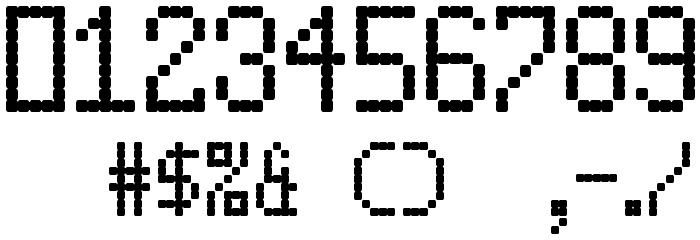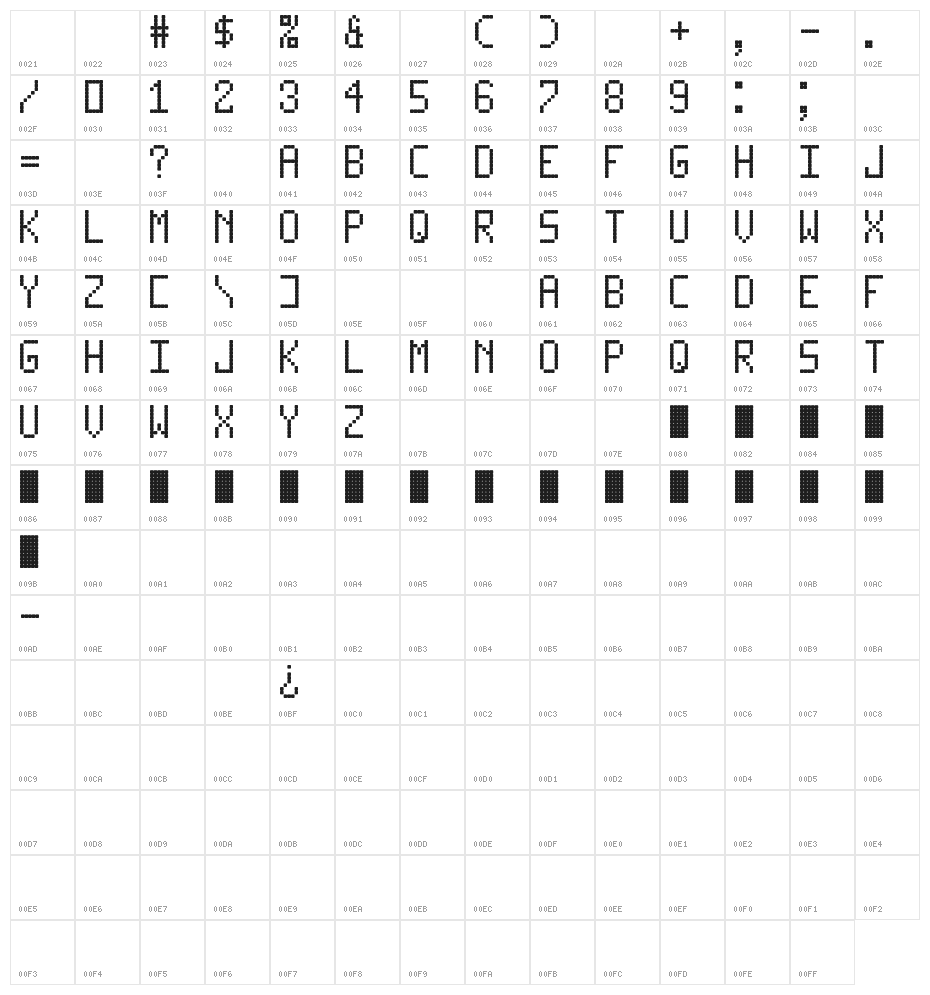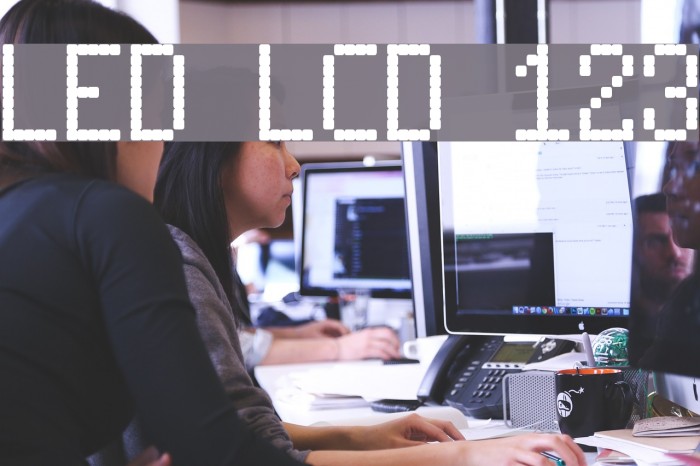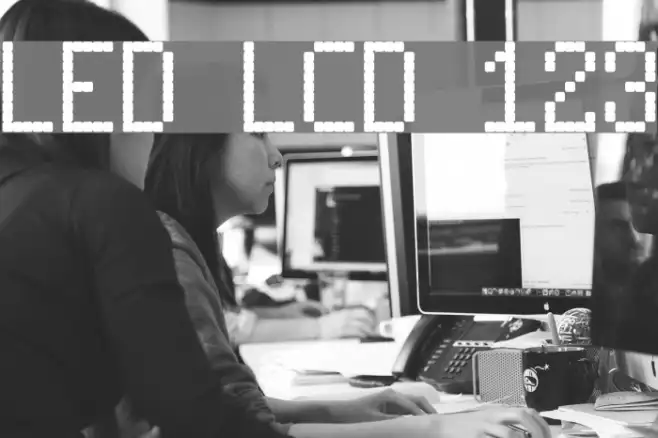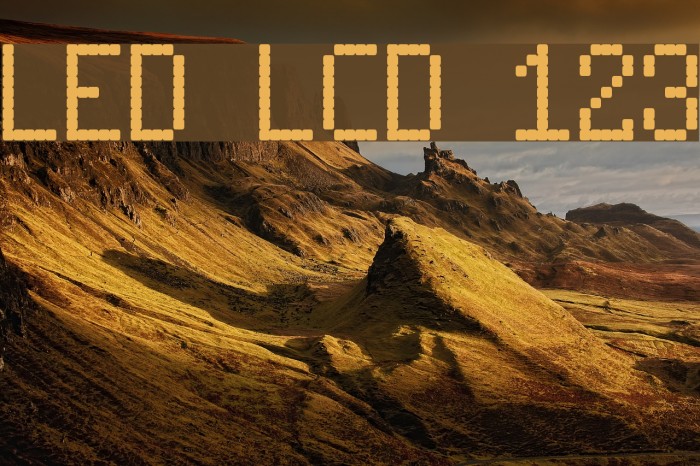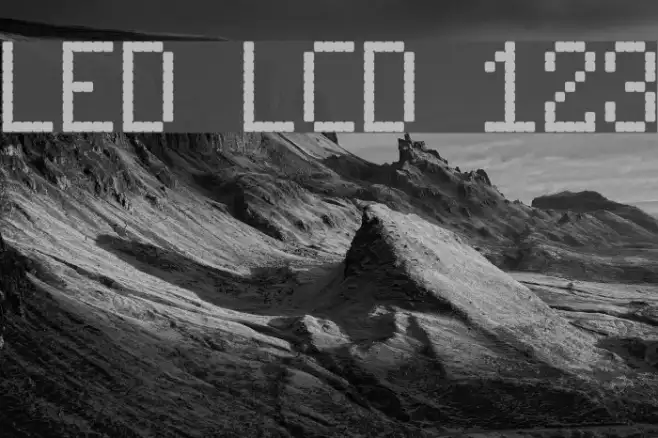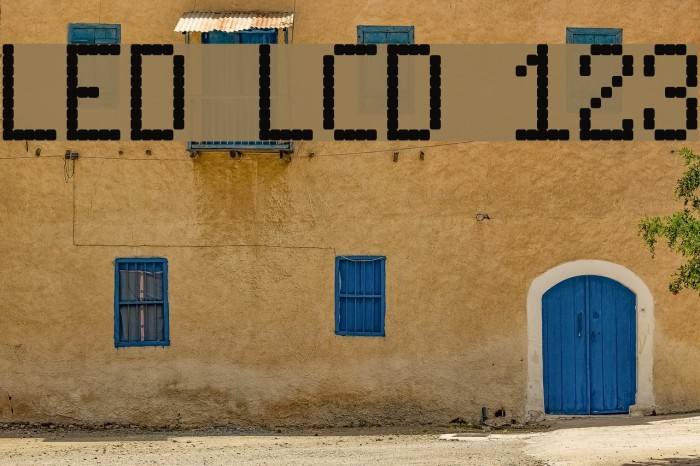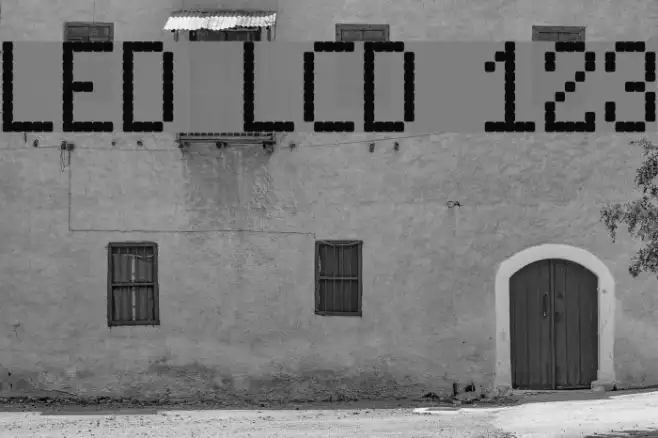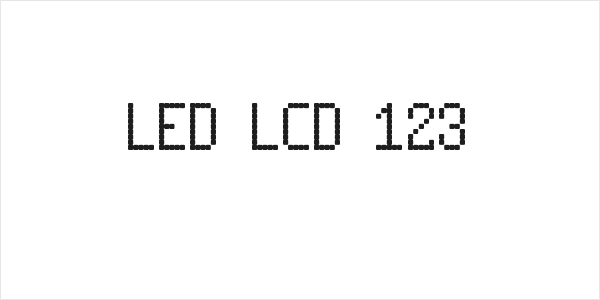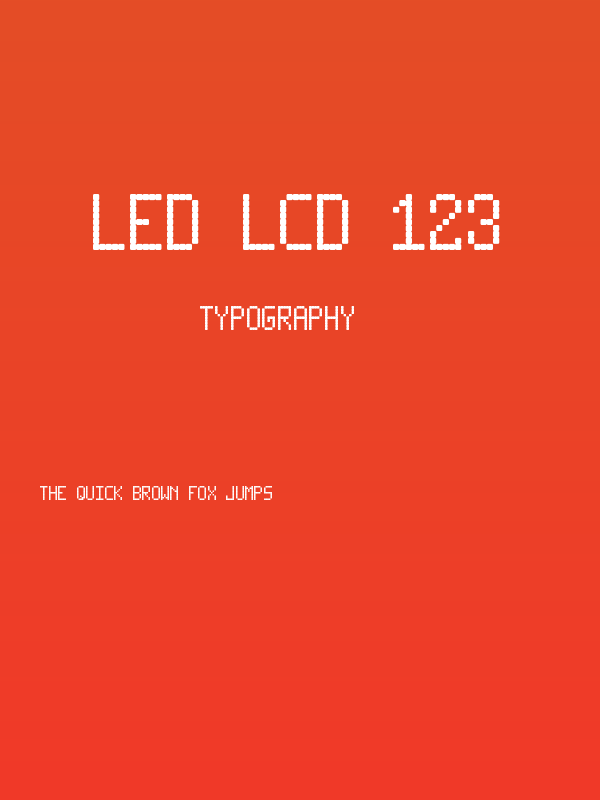
LED LCD 123 Font
LED LCD 123 Description
This font features a distinctive dot-matrix style, reminiscent of digital displays commonly found in LED and LCD screens. Each character is composed of a grid of dots, creating a pixelated appearance that is both modern and retro. The uppercase and lowercase letters maintain a consistent height, contributing to a uniform look. Numbers and special characters are crafted with the same dot pattern, ensuring visual coherence across all symbols. The font's geometric structure and clear legibility make it ideal for digital-themed projects.
| Use Case | Headlines, Logos, Digital displays |
| Proposed Projects | Ideal for digital displays, tech-themed designs, retro gaming interfaces, and electronic device branding. |